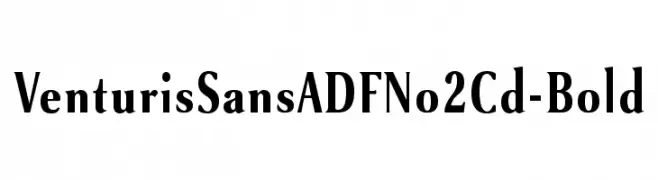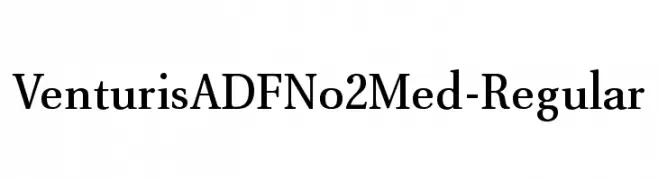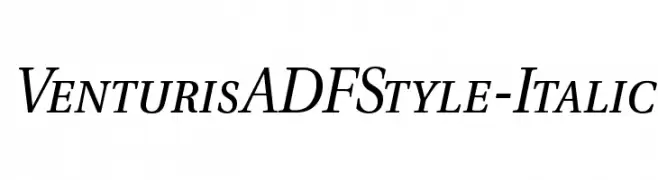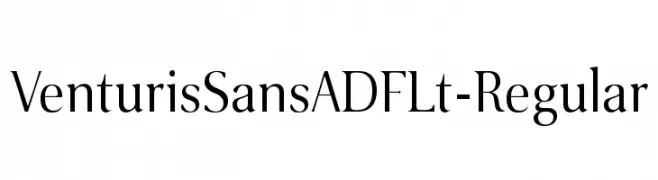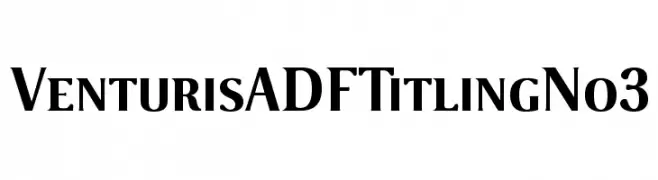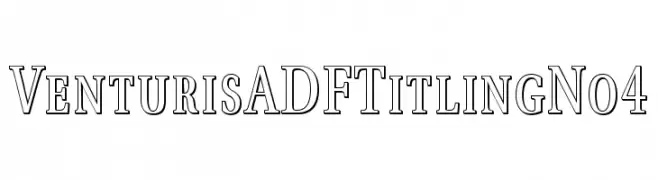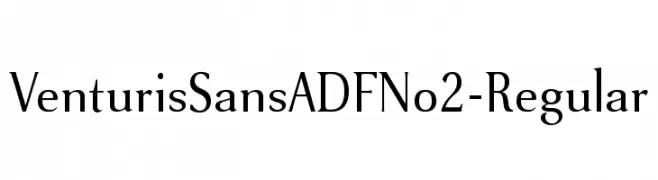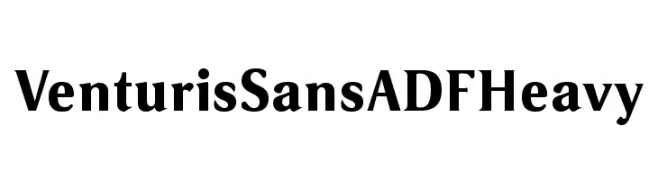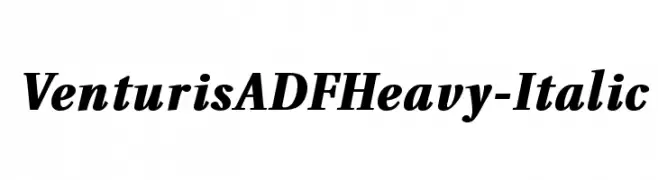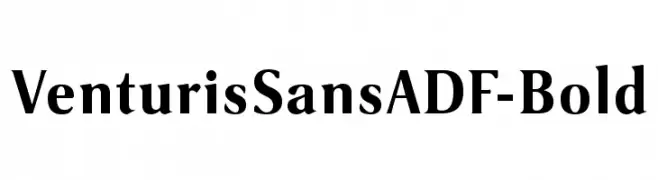
A classic serif font with elegant strokes and refined proportions.
Elegant serif font with an italic slant and moderate stroke contrast.
A bold, condensed serif font with strong, thick strokes and a modern twist.
A classic serif typeface with balanced proportions and medium weight.
An elegant serif font with a classic italic style and refined appearance.
A refined serif font with elegant lines and balanced proportions.
A classic serif font with bold strokes and elegant curves.
A classic serif font with modern elegance and medium contrast.
A refined serif typeface with elegant curves and balanced proportions.
A bold, decorative serif font with Gothic influences and high contrast strokes.
A bold, serif font with a classic and authoritative style.
A bold, italicized font with moderate contrast and a modern yet classic style.
A bold, heavy serif font with a classic and authoritative style.
Elegant italic font with smooth, flowing letterforms and a classic style.
A bold, classic serif font with strong strokes and pronounced serifs.
A bold, italic serif typeface with medium contrast and a dynamic presence.
A bold serif font with a classic yet modern appeal, featuring sharp and clean characters.
A classic serif font with elegant strokes and a refined appearance.
A classic serif font with an elegant italic slant, offering sophistication and readability.
A bold, classic serif font with strong strokes and elegant design.
A bold, italic serif font with a classic and elegant style.
A classic serif font with elegant strokes and balanced proportions.
A bold, classic serif font with moderate contrast and pronounced serifs.
A bold, classic serif font with strong serifs and balanced proportions.
An elegant serif typeface with a classic italic style and moderate contrast.
A classic serif font with elegant strokes and refined proportions.
A classic serif font with elegant italic styling and moderate contrast.
A bold, classic serif font with moderate contrast and elegant serifs.
A bold, italic serif font with elegant curves and a classic style.
A classic serif font with elegant strokes and refined design.
An elegant italic typeface with smooth curves and a refined, classic appearance.
A bold, italic serif font with elegant, flowing lines and a classic style.
A classic serif font with elegant strokes and timeless appeal.
An elegant serif font with a classic italic style and refined serifs.
A bold serif font with strong strokes and elegant serifs.